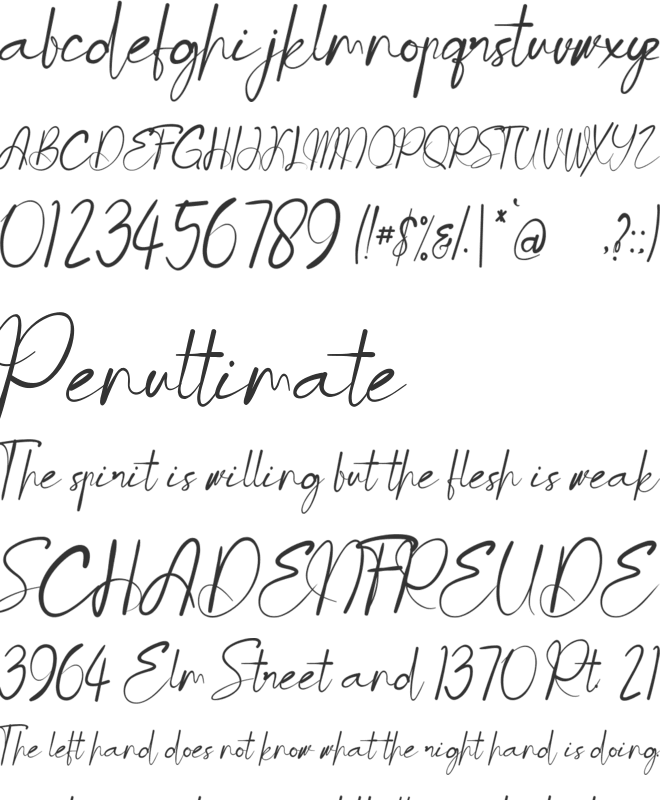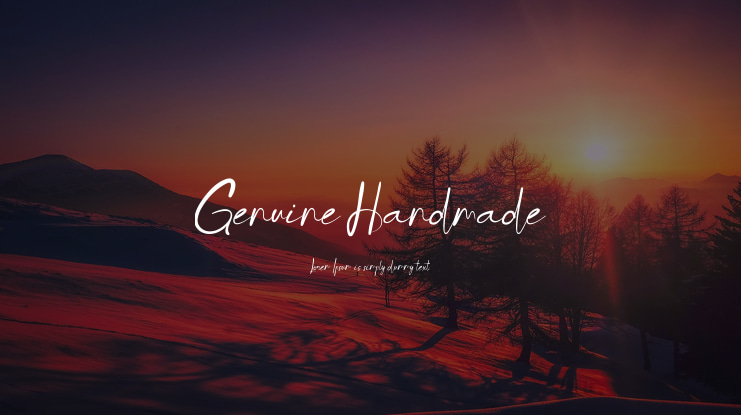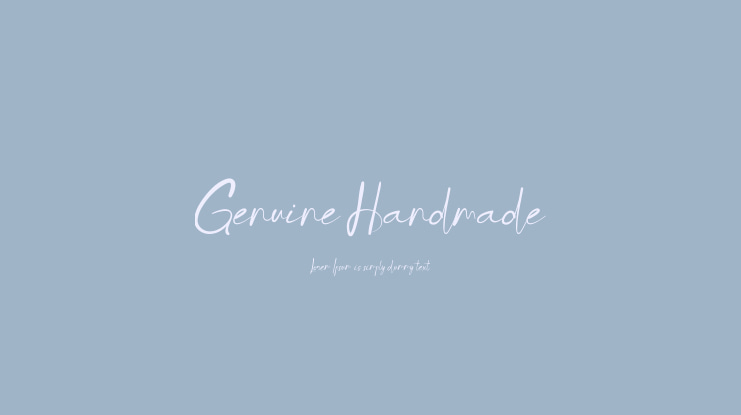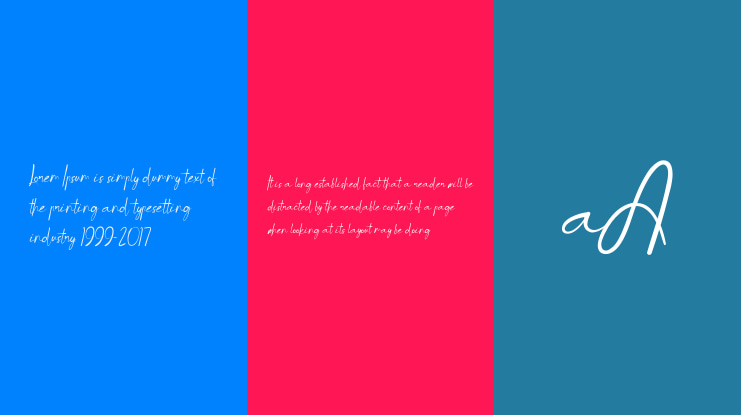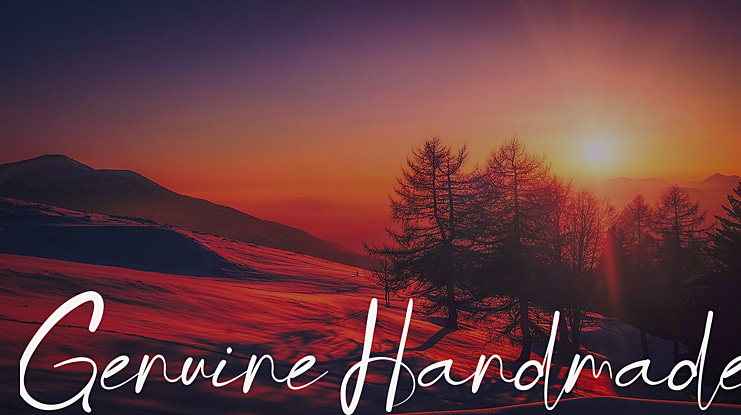
Genuine Handmade Font
This font retains a classy calligraphic influence while feeling contemporary and fresh. This versatility will attract a wide range of creative ideas, from letterheads and titles to stationery. _________________________________________________________________________ WARNING!!!